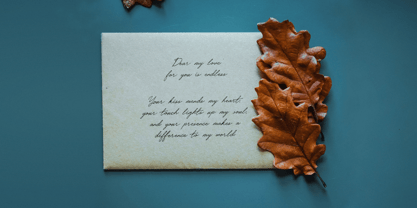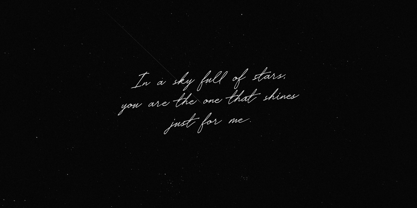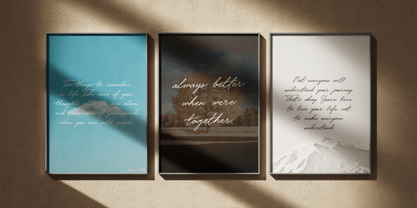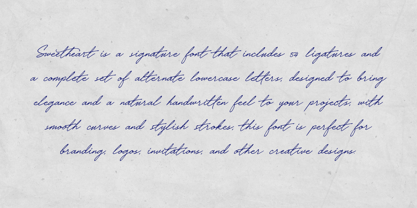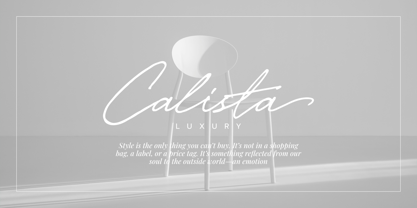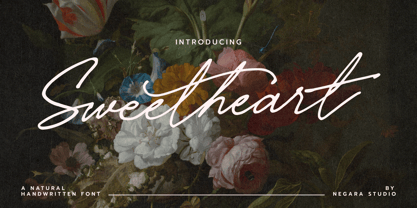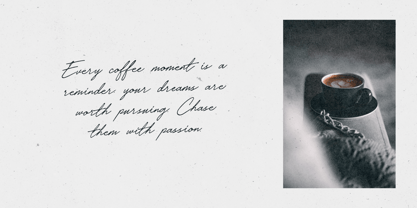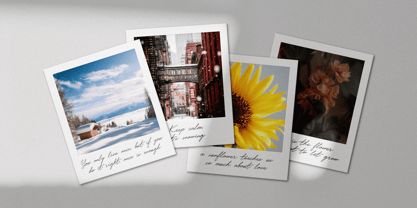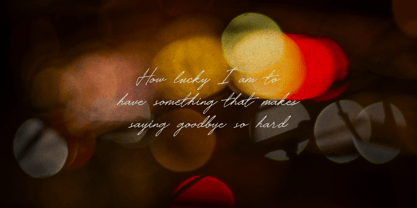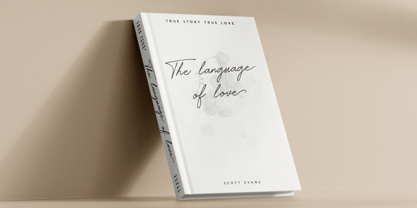
Sweetheart Hw
by Negara Studio
The Sweetheart Hw Font Family was designed by Anugerah Negara and published by Negara Studio. Sweetheart Hw contains 1 styles. More about this family
Sweetheart is a natural handwritten font, it has a luxurious, elegant, and formal nature. This font is perfect for beauty, fashion product, logos, product branding, printable templates, posters, flyers, shirts, or for text overlays on any background image. Font comes in All caps, with punctuation, numbers and also has multilingual support.
Sweetheart supports the following languages; English, French, Italian, Spanish, Portuguese, German, Swedish, Norwegian, Danish, Dutch, Finnish, Indonesian, Malay, Hungarian, Polish, Croatian, Turkish, Romanian, Czech, Latvian, Lithuanian, Slovak, Slovenian
Designers: Anugerah Negara
Foundry: Negara Studio